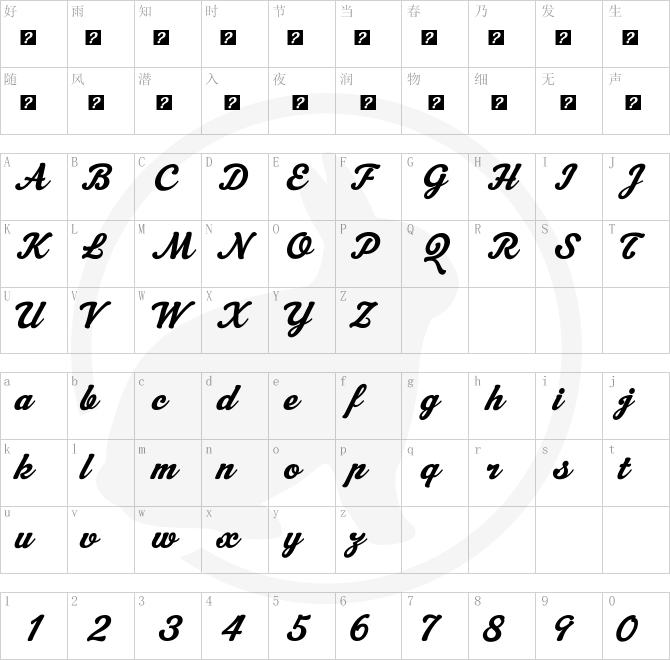
- Font Name:Machiarge
Machiarge.ttf is a very beautiful artistic font, Machiarge.ttf is widely used in the design and printing of various books and pictures,Machiarge.ttf has a strong visual impact,Machiarge.ttf is a commonly used font in newspapers, magazines and books, and is used in posters, e-commerce Poster design, store design, logo design, font design and other fields.Machiarge.